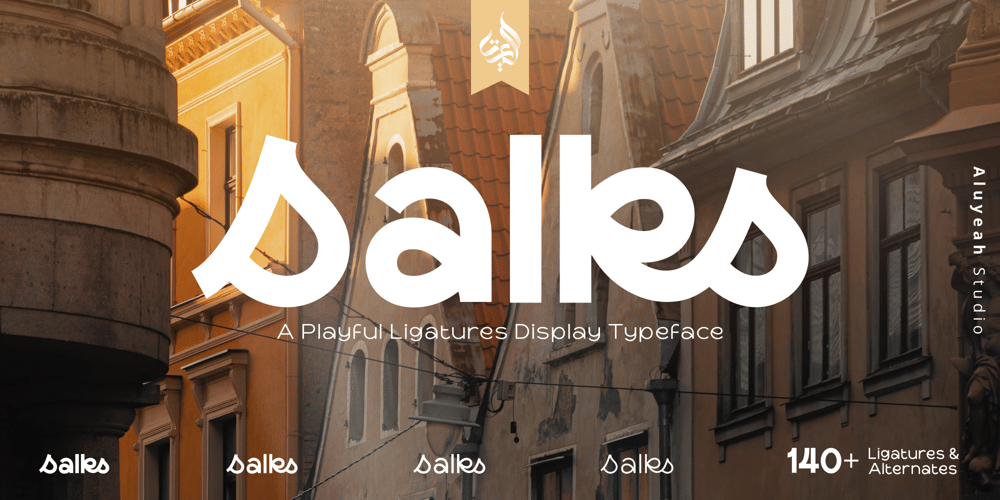
Al Salks Font Family was designed by Linggar Sundoro and published by Aluyeah Studio. Al Salks contains 4 styles and family package options. Hello Aluyeaholics! Introducing Salks, the Typeface That Brings Joy to Your Designs!Salks is a playful and joyful display typeface that will add a touch of happiness to your creative projects. With Salks’ 140+ playful ligatures, four weight options, quick access features, and careful attention to detail, you’ll have the perfect tool to instantly uplift any project and unlock unlimited creative possibilities. Experience the happiness that Salks brings to your creative world with this delightful display typeface that guarantees smiles all around.